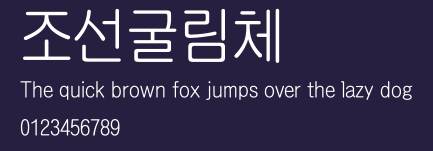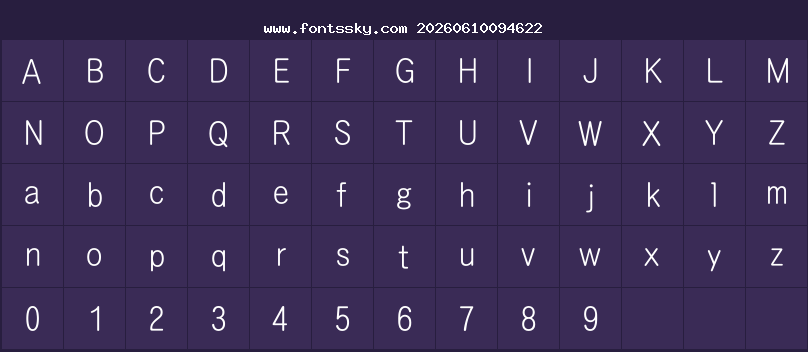
조선굴림체 Preview
• Font Name: 조선굴림체
• Font ID: 조선굴림체
• Full Font Name: 조선굴림체
• Version: 020.100
• PostScript Name: ChosunGu
• Character Count: 17144
About 조선굴림체.ttf
조선굴림체.ttf is a modern, elegant sans-serif font designed for ultimate readability and visual harmony. Perfect for branding, headlines, web design, and print materials.